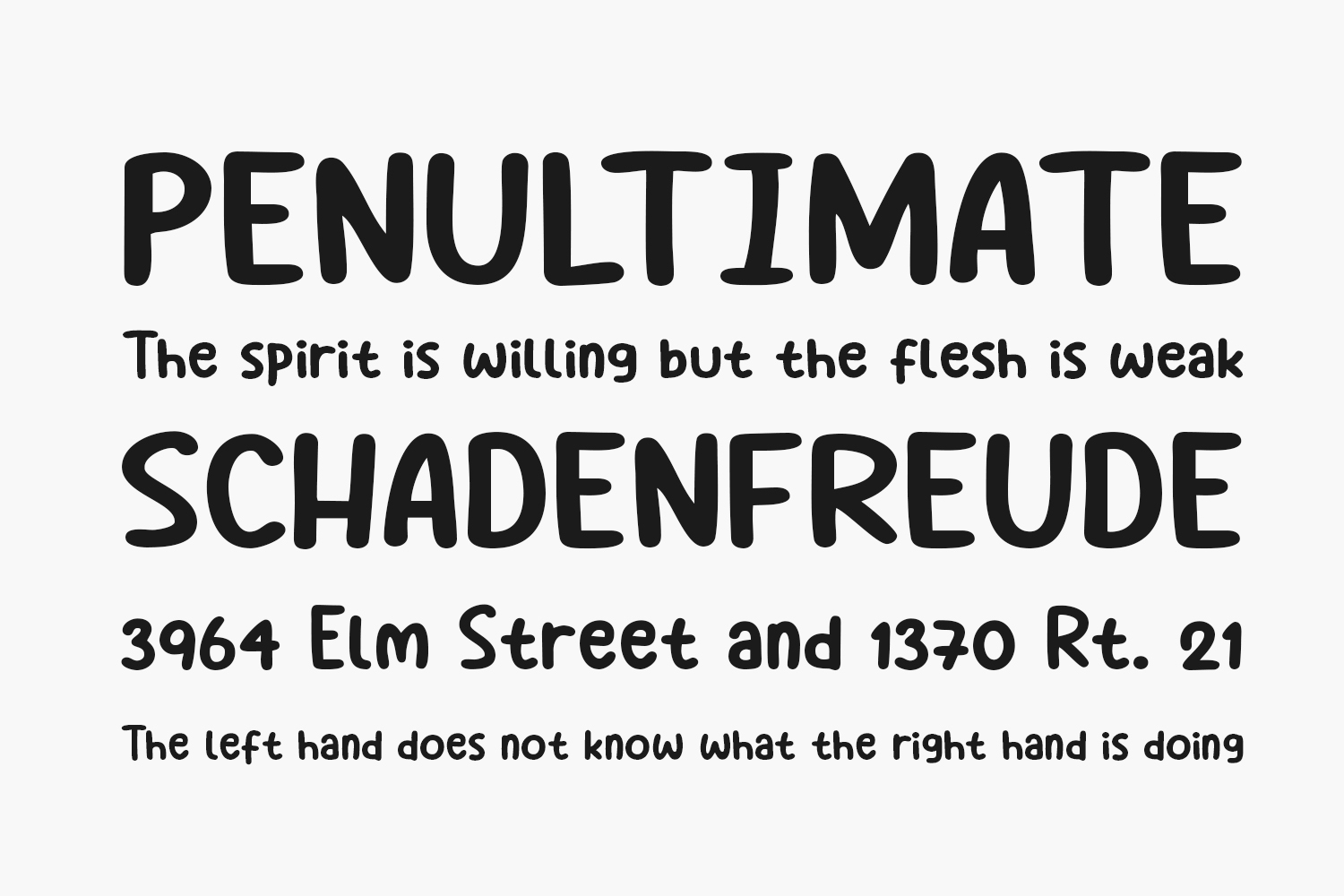
Discover Milky Mania Free Font, a contemporary and stylish display font that is a seamless fit for a wide range of design projects including posters, logos, magazines, book covers, banners, and more. Unleash your creativity with this incredible font and witness how it transforms your ideas into remarkable works of art. With its versatility and captivating appeal, “Milky Mania” elevates your designs, making them truly stand out from the crowd. Don’t miss the opportunity to incorporate this amazing font into your creative arsenal. Milky Mania Free Font is free for personal or commercial use.